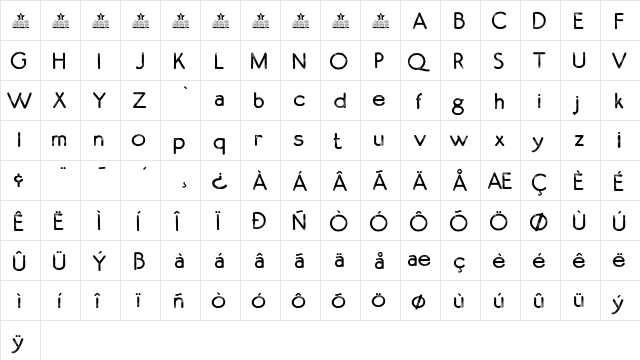
LOST AGES Regular
Design Context for LOST AGES Typeface
LOST AGES offers clean, dependable letterforms without strong stylistic allegiance, making it a practical choice for designers who need flexibility.